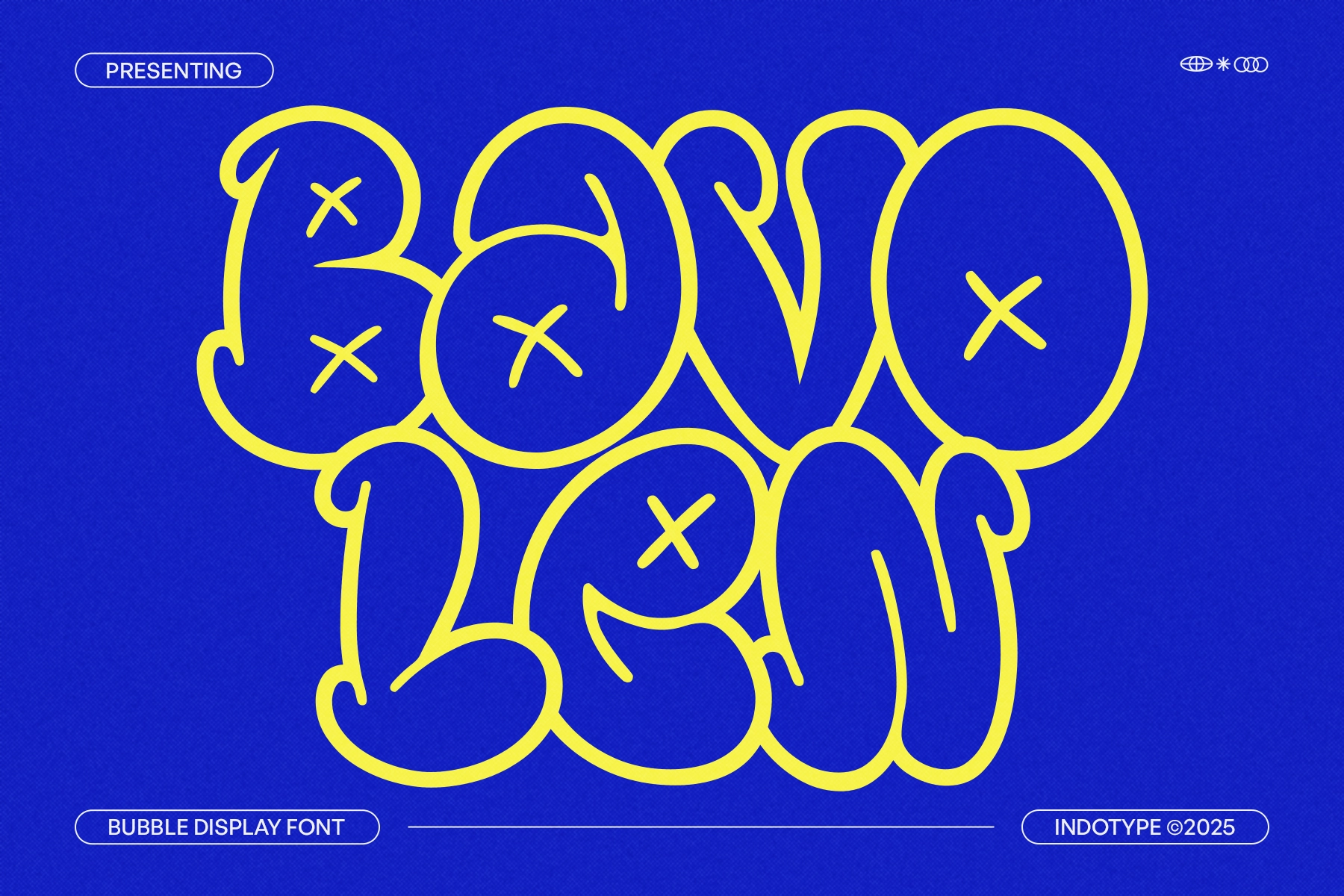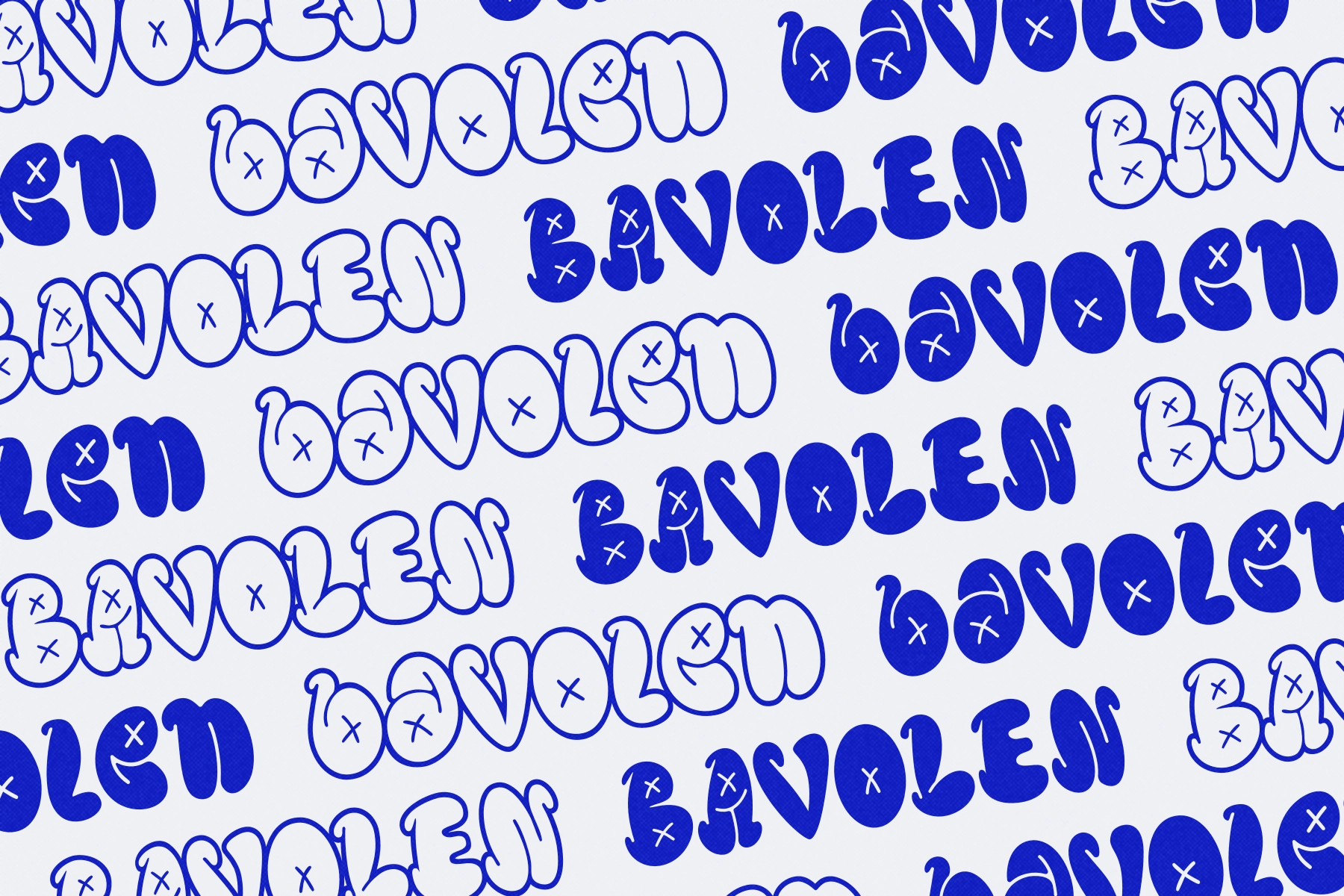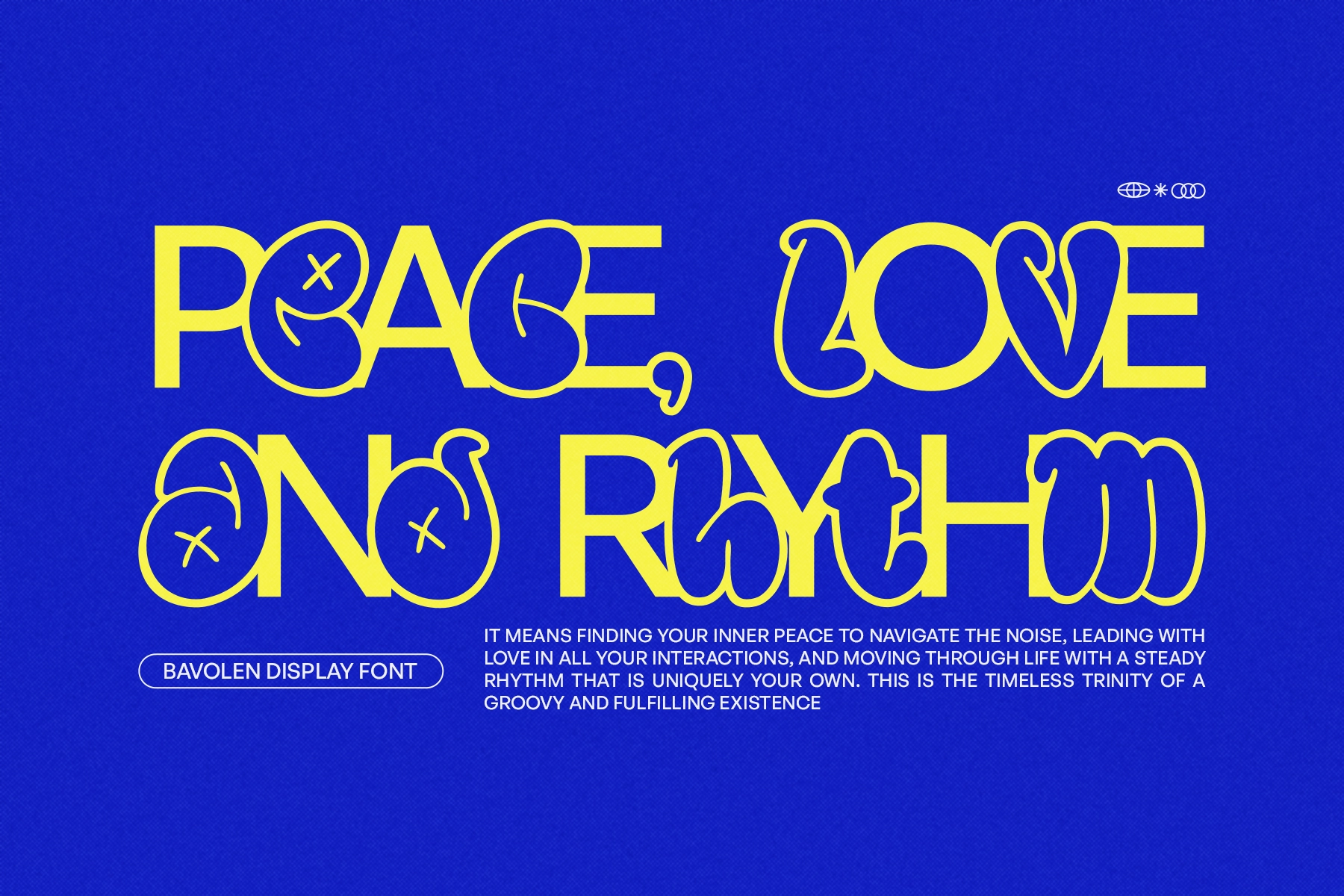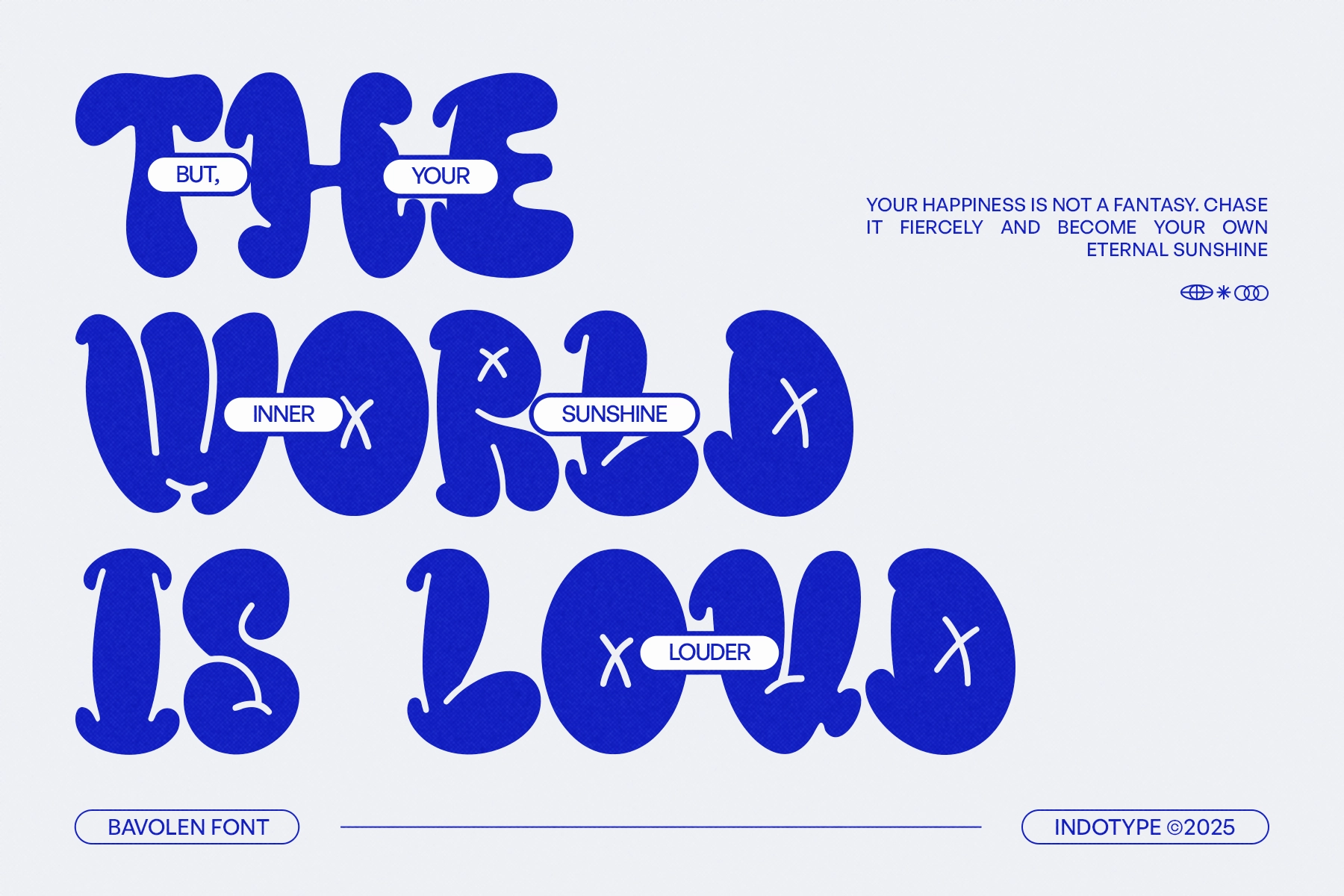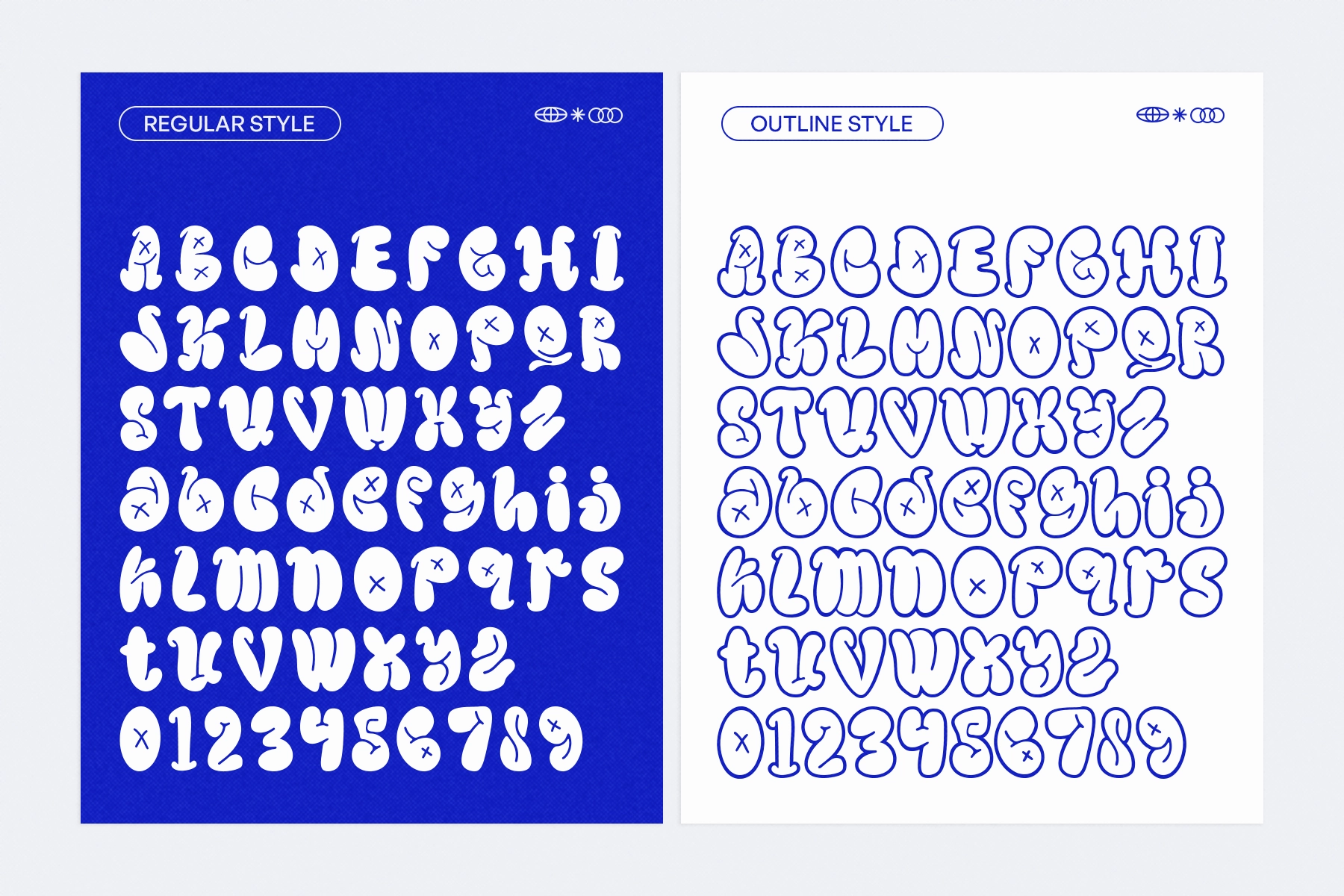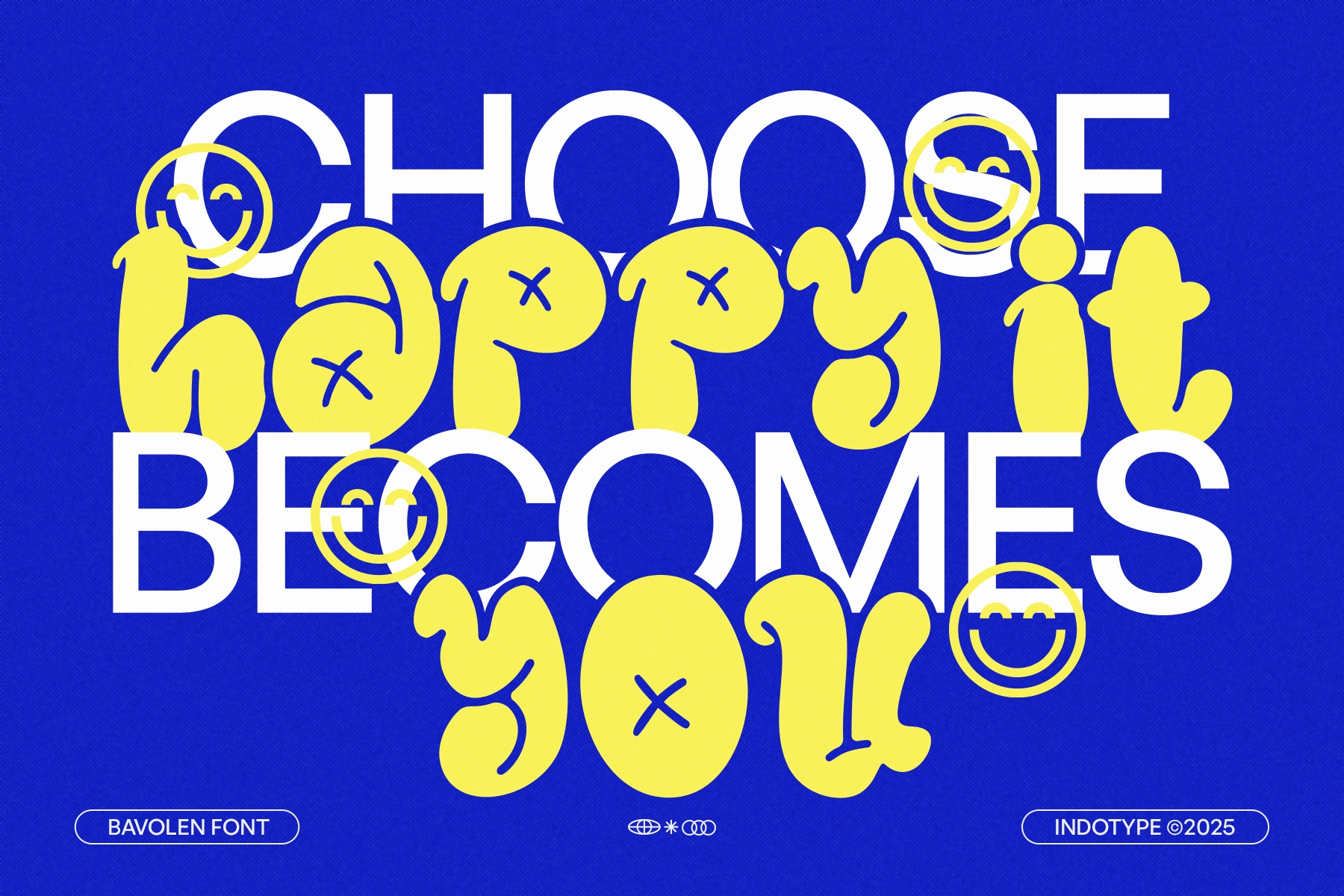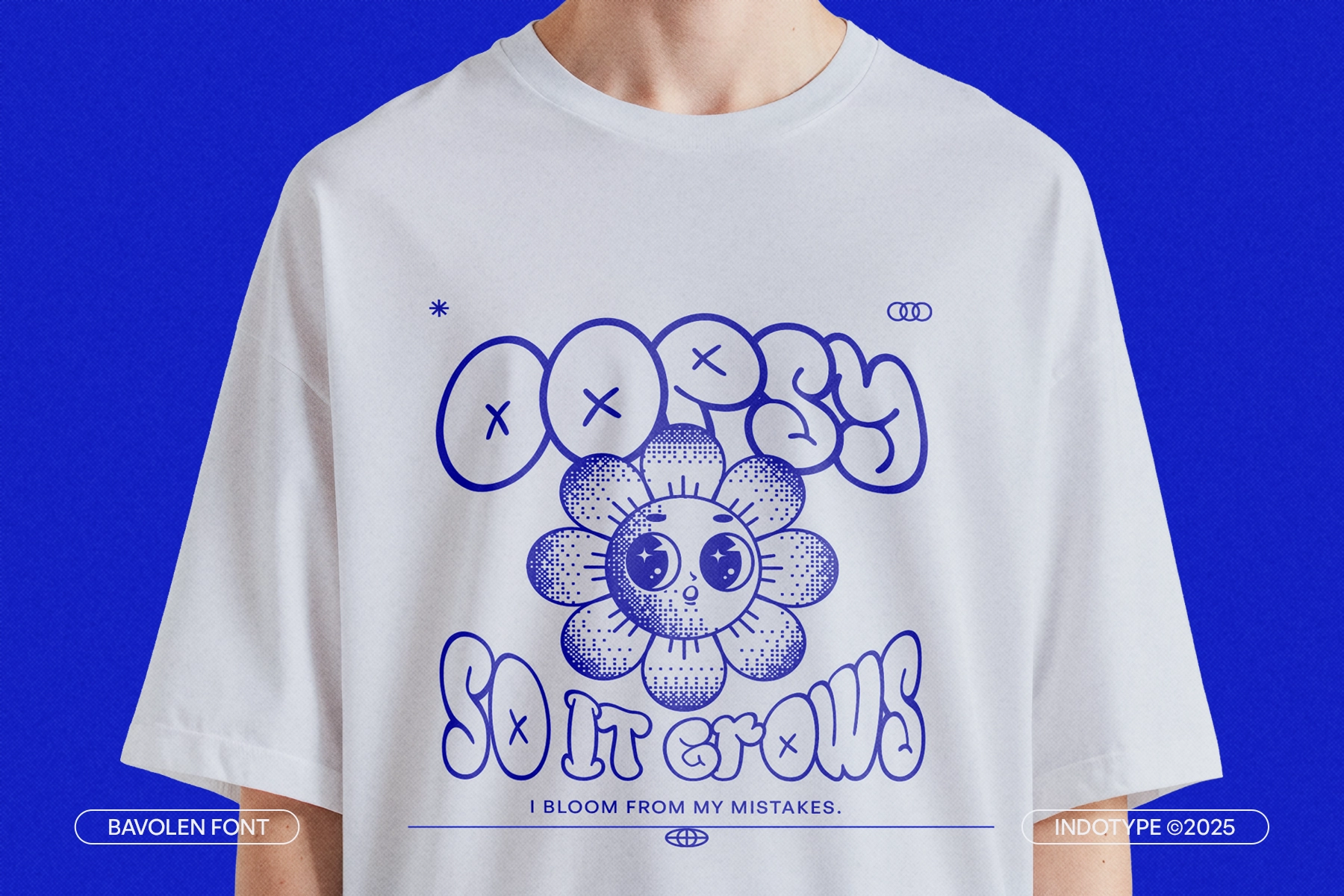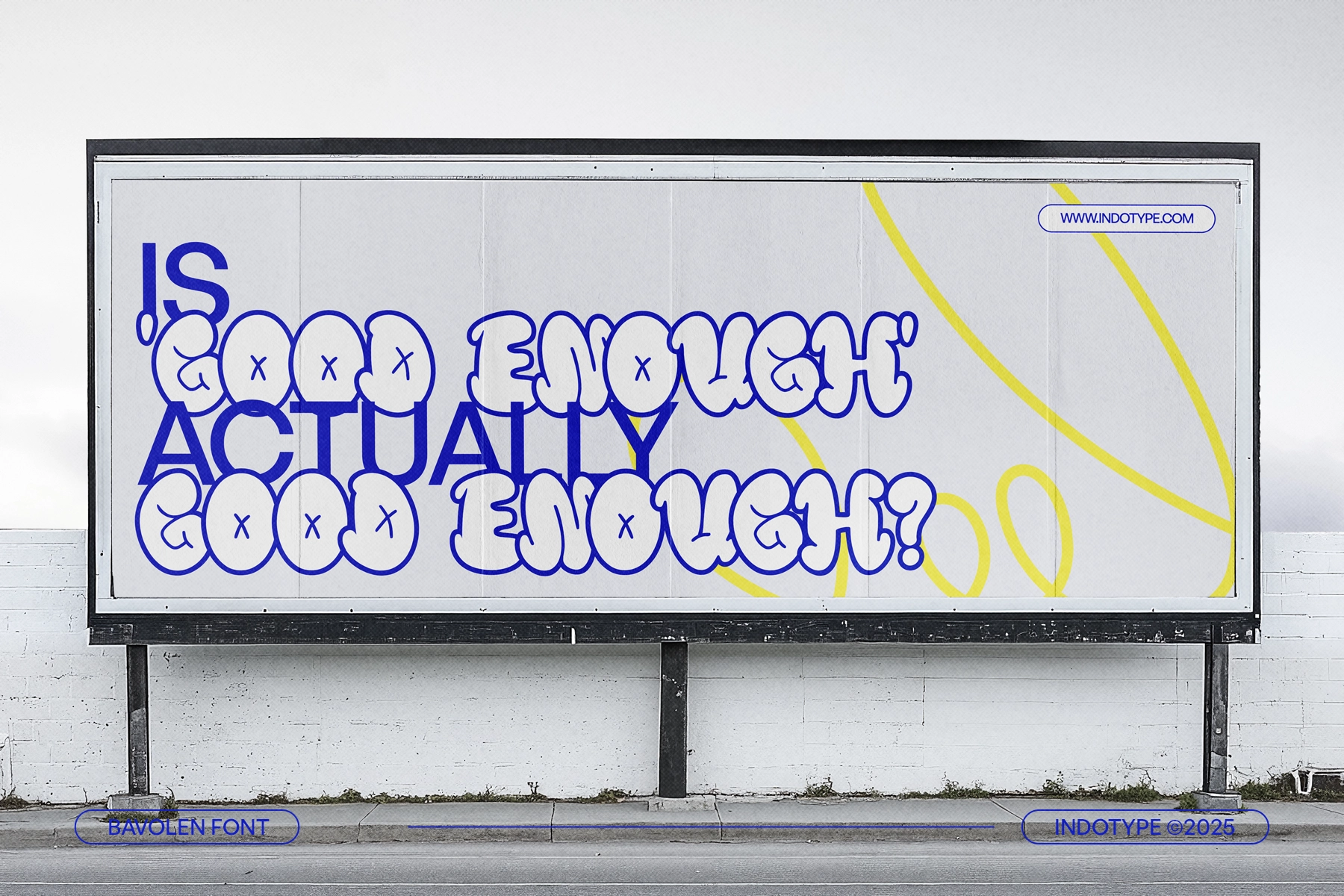
Bavolen - Bubble Graffiti Display Font
This display font is round, loud, and full of street-pop energy, with inflated letterforms that look drawn for posters, stickers, and the kind of graphics that refuse to behave. The bubble shapes, playful counters, and hand-marked details give each word a bright graffiti character without losing readability.
It is a strong pick for streetwear logos, music artwork, festival posters, skate graphics, sticker packs, youth branding, packaging, social media headers, comic-style titles, merch prints, event flyers, album covers, and more. The regular and outline styles give the set extra range, from solid punchy lettering to lighter outlined compositions with plenty of attitude.
- Regular & Outline Styles
- Bubble Display Design
- Graffiti-Inspired Letterforms
- Numerals, Punctuation & Symbols